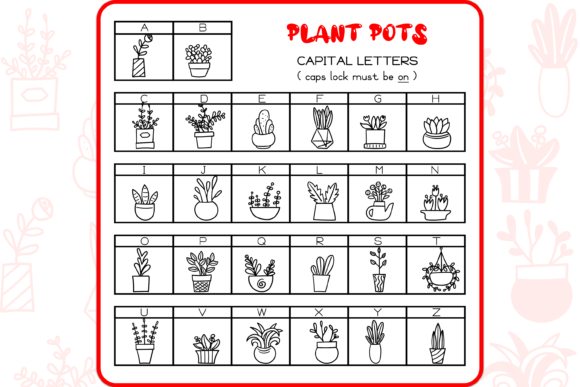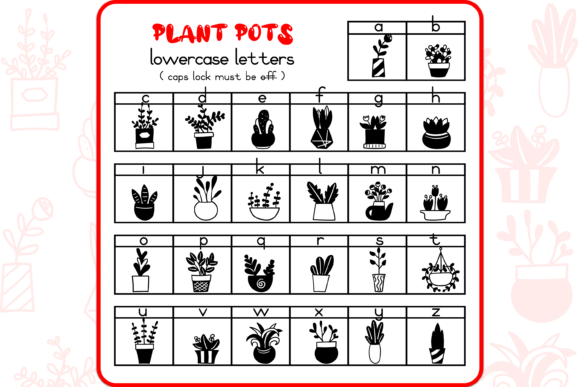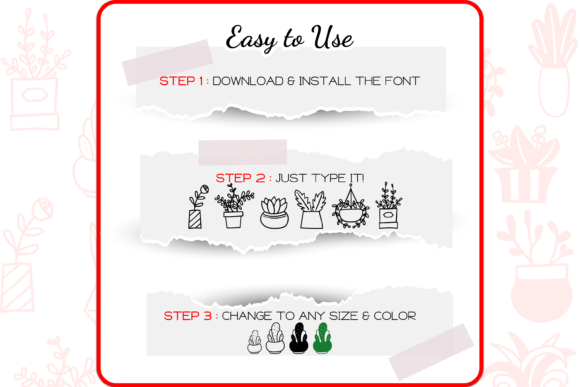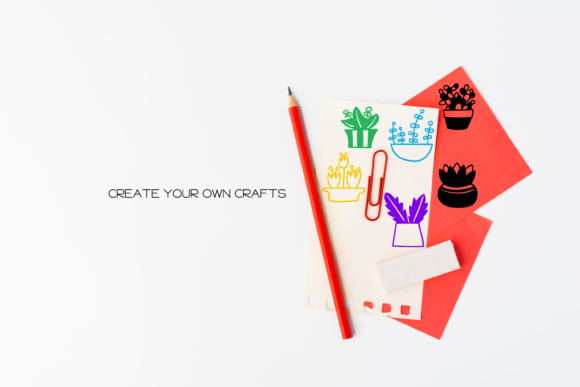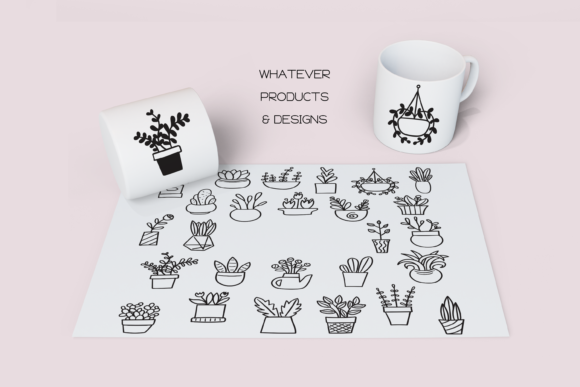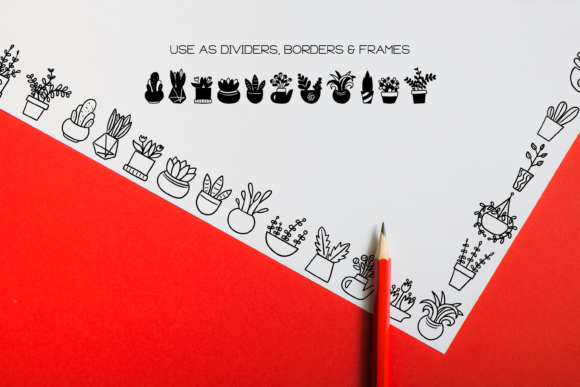
Introduction to Plant Pots Font
Plant Pots dingbats is a fun customized font where each letter is a unique doodle.
This set contains 52 hand-drawn doodles of indoor plants Add this font to your creative ideas or them to create dividers, borders, or frames.